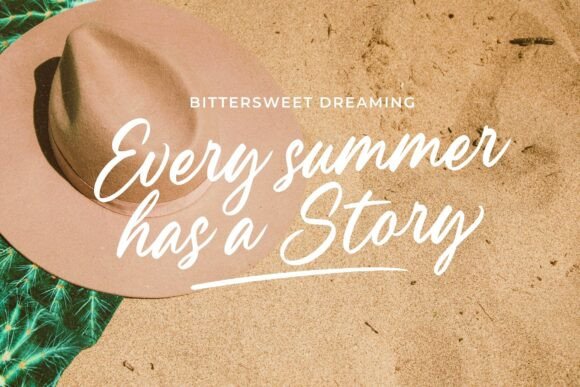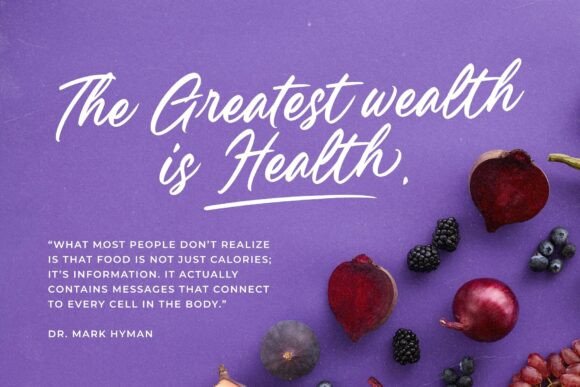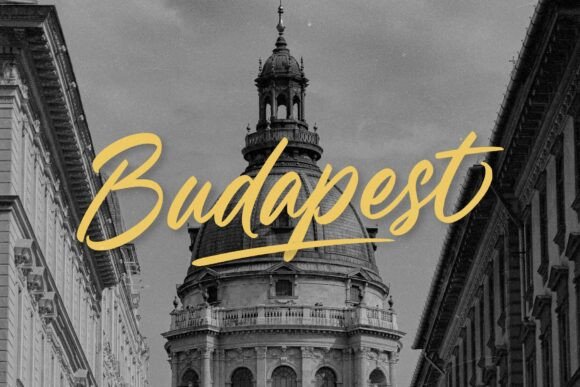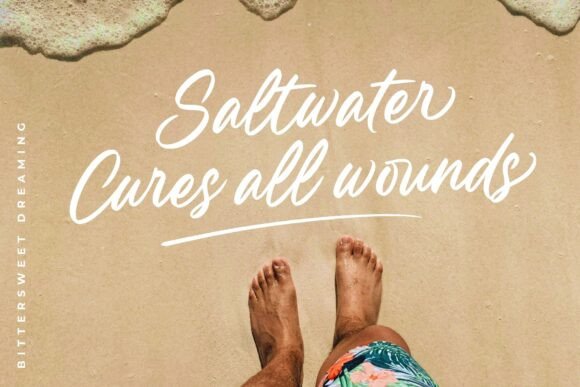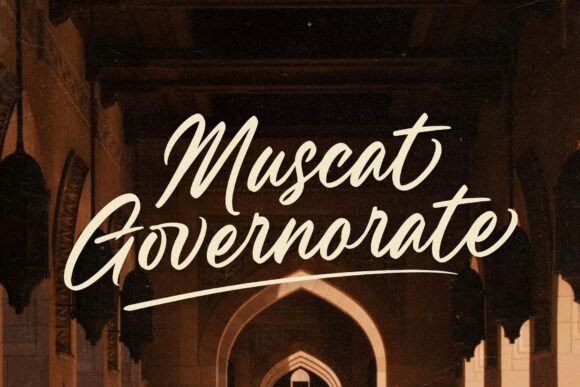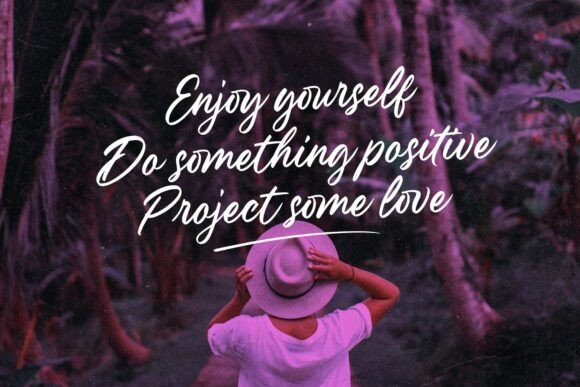
The Magical World of Bittersweet Dreaming Font
Have you ever been in the middle of a design project, and suddenly, you’re stuck on finding the perfect font? I recall a recent experience where a client asked for a whimsical touch to their branding, and I was on a mission to find the ideal typeface. That’s when I stumbled upon Bittersweet Dreaming, a versatile handbrush font that instantly captured the essence of whimsy and wonder.
- 💫 Unique Character: Bittersweet Dreaming has a distinct, handbrush feel that adds a touch of magic to any design.
- 🌈 Versatility: Its adaptability makes it perfect for various design projects, from branding to invitations and social media graphics.
- 📚 OpenType Features: The font comes with a range of OpenType features, including glyphs and stylistic alternates, allowing for creative experimentation.
- ⚠️ Legibility at Small Sizes: Bittersweet Dreaming can be tricky to read at very small font sizes, so it’s best used at larger sizes or for headlines.
- ⚠️ Limited Formality: Due to its whimsical nature, this font might not be the best fit for formal or professional designs.
Bittersweet Dreaming was crafted with the intention of capturing life’s magical moments. Inspired by vintage handbrush scripts and the fluidity of handwritten text, this font embodies a sense of whimsy and playfulness. Its designer aimed to create a typeface that feels both nostalgic and refreshingly new.
| What makes Bittersweet Dreaming unique? | Its handbrush style and extensive OpenType features make it stand out, offering a unique blend of whimsy and versatility. |
| Is Bittersweet Dreaming difficult to read? | While it’s best used at larger sizes, Bittersweet Dreaming’s legibility can be maintained with careful selection of size and color contrast. |
| Can I use Bittersweet Dreaming on mobile apps? | Absolutely! Bittersweet Dreaming can add a creative touch to your mobile app designs, especially for headings and titles. |